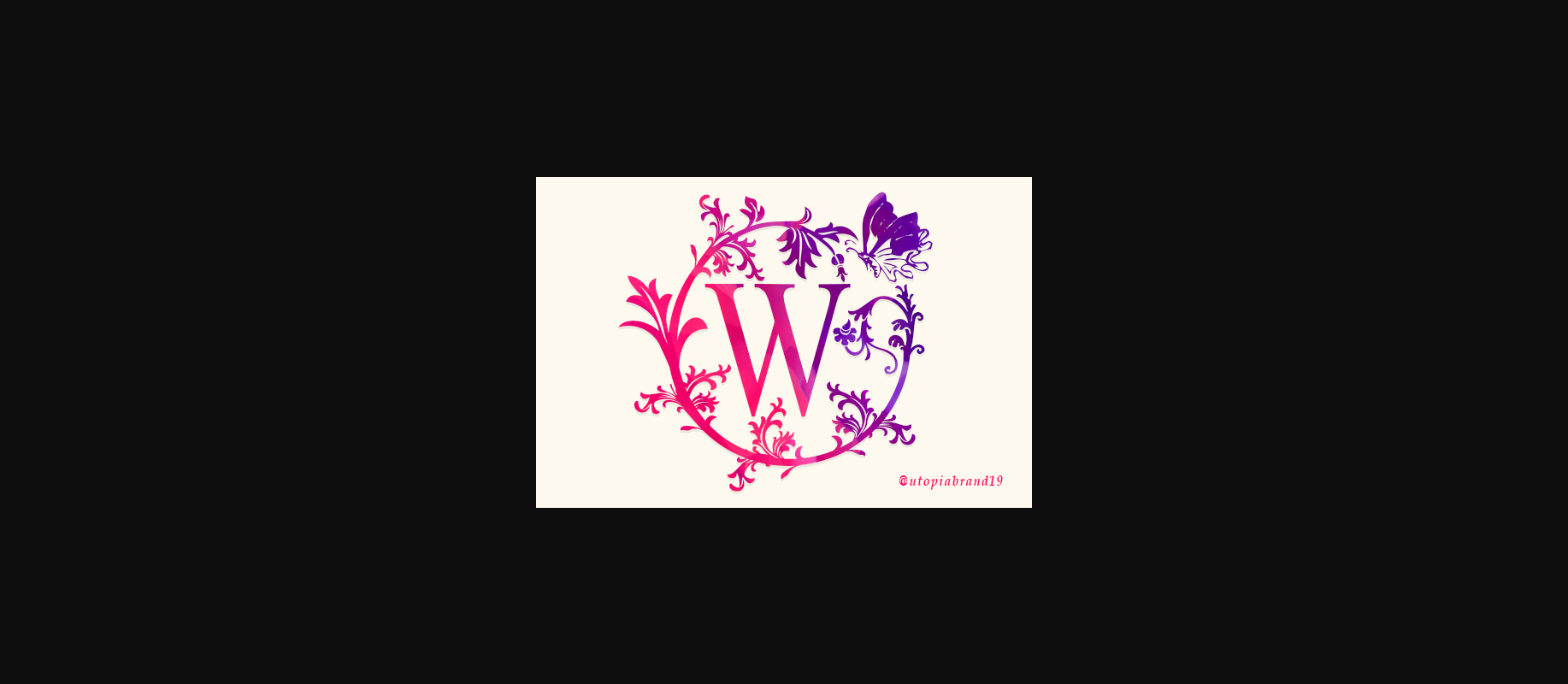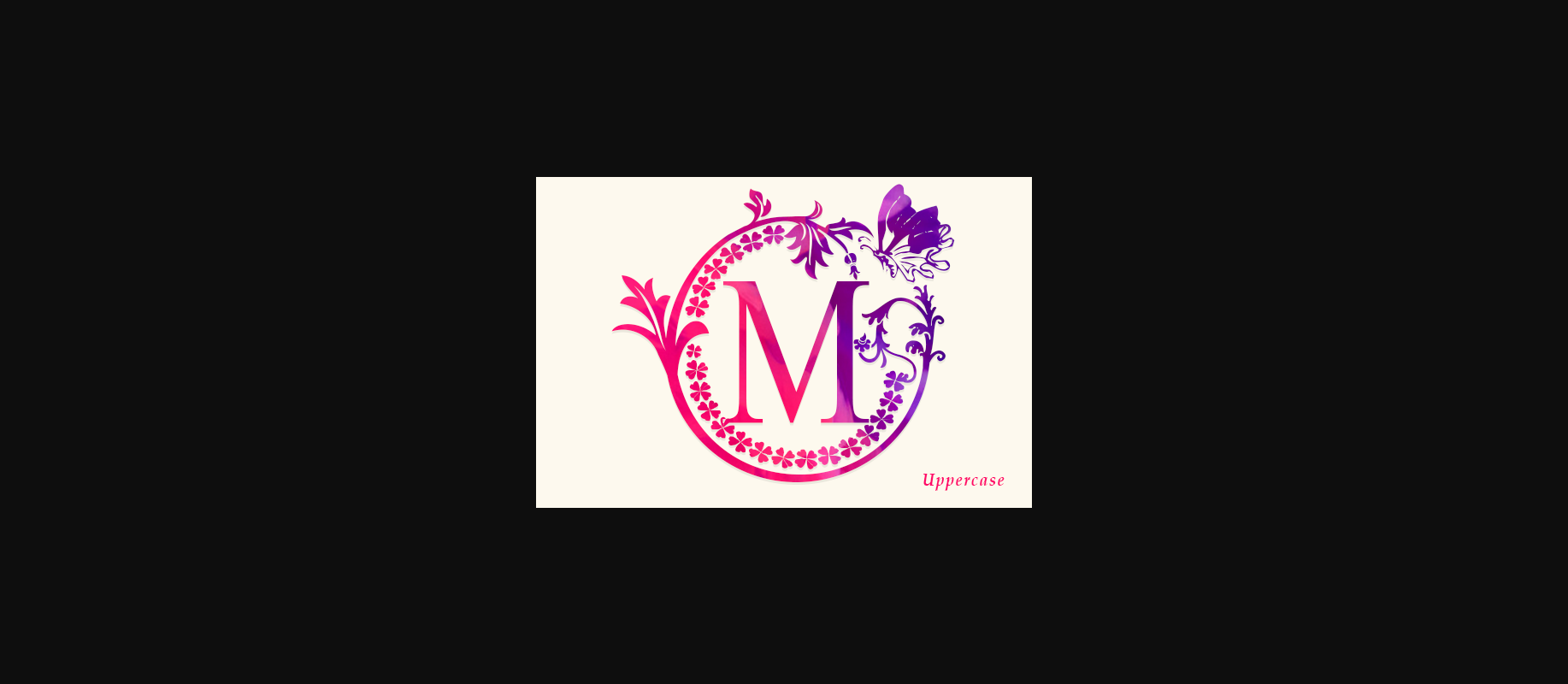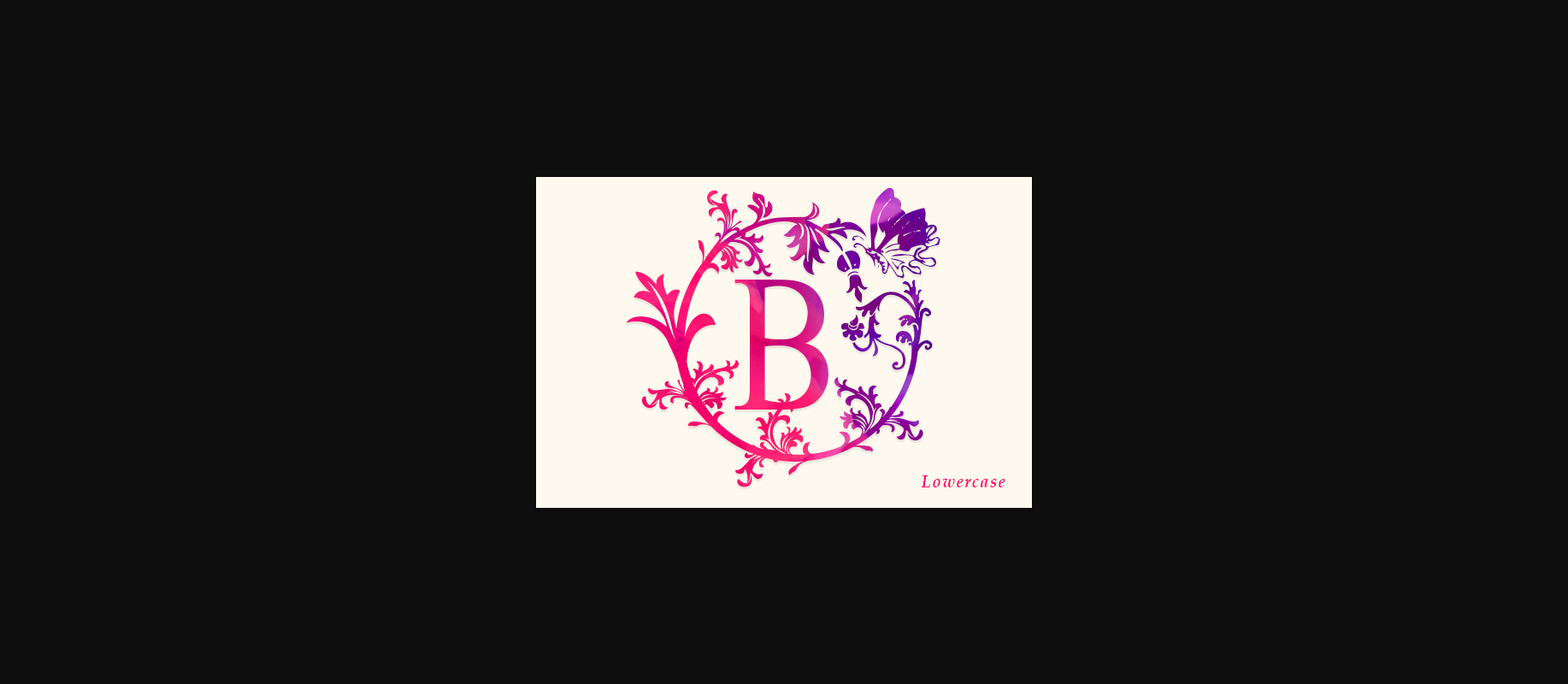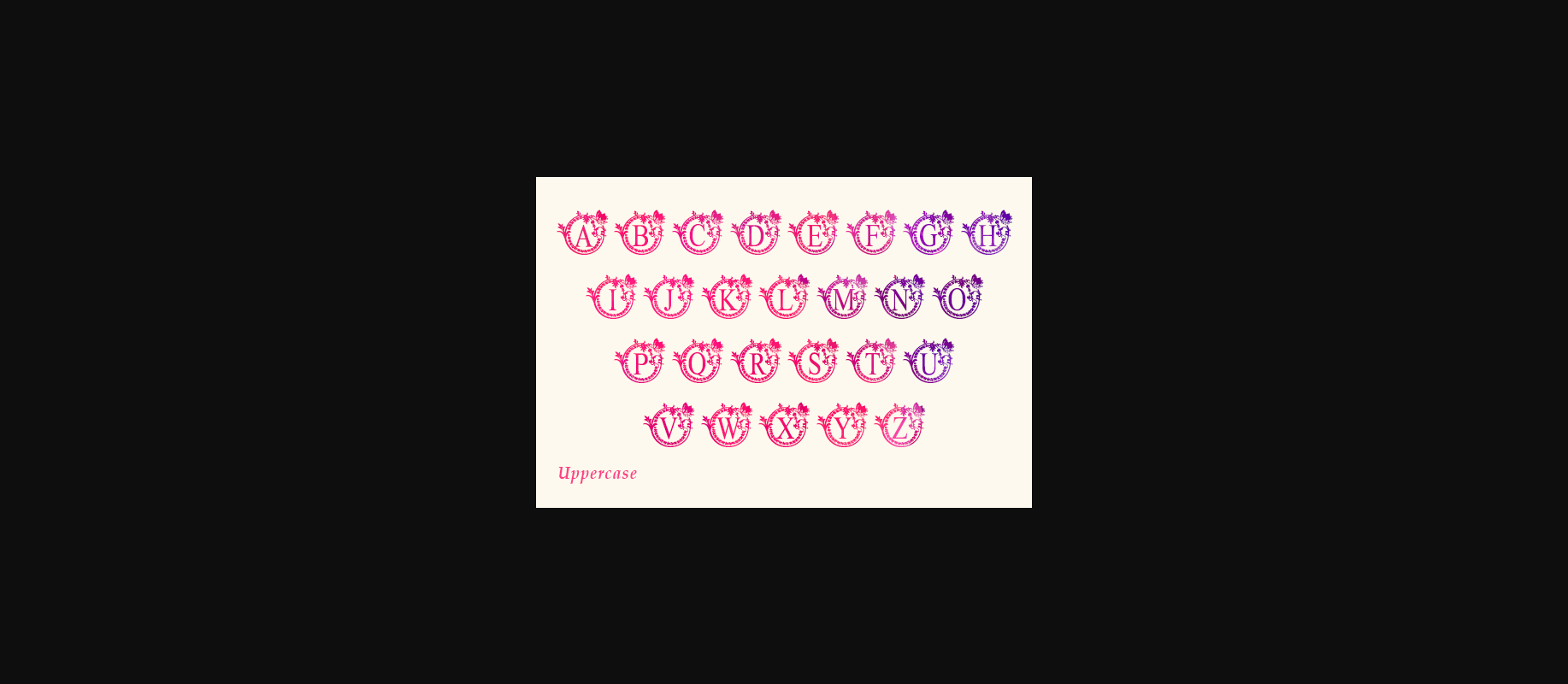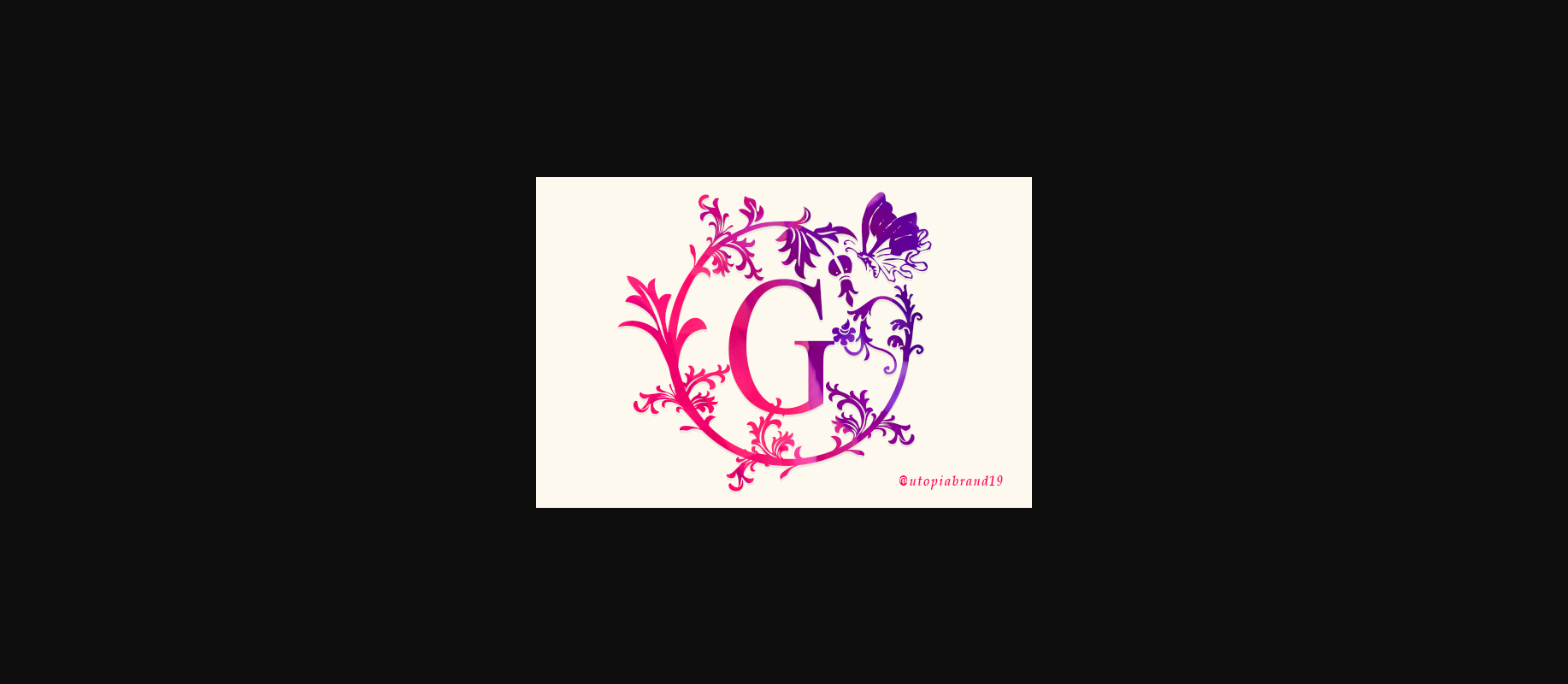
Womens Day Font
About Womens Day Font
Womens Day is a refined and elegant decorative font. Whatever the topic, this font will be a wonderful asset to your font library, as it has the potential to enhance any creation.